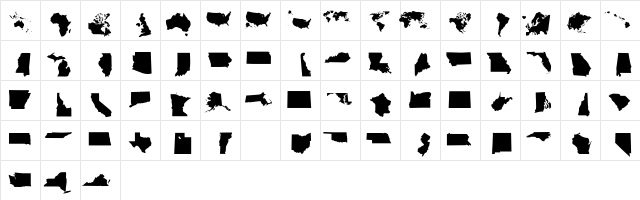
75 Regular
Design Context for 75 Typeface
75 is a composed and adaptable typeface that performs quietly and consistently across a wide range of design contexts.